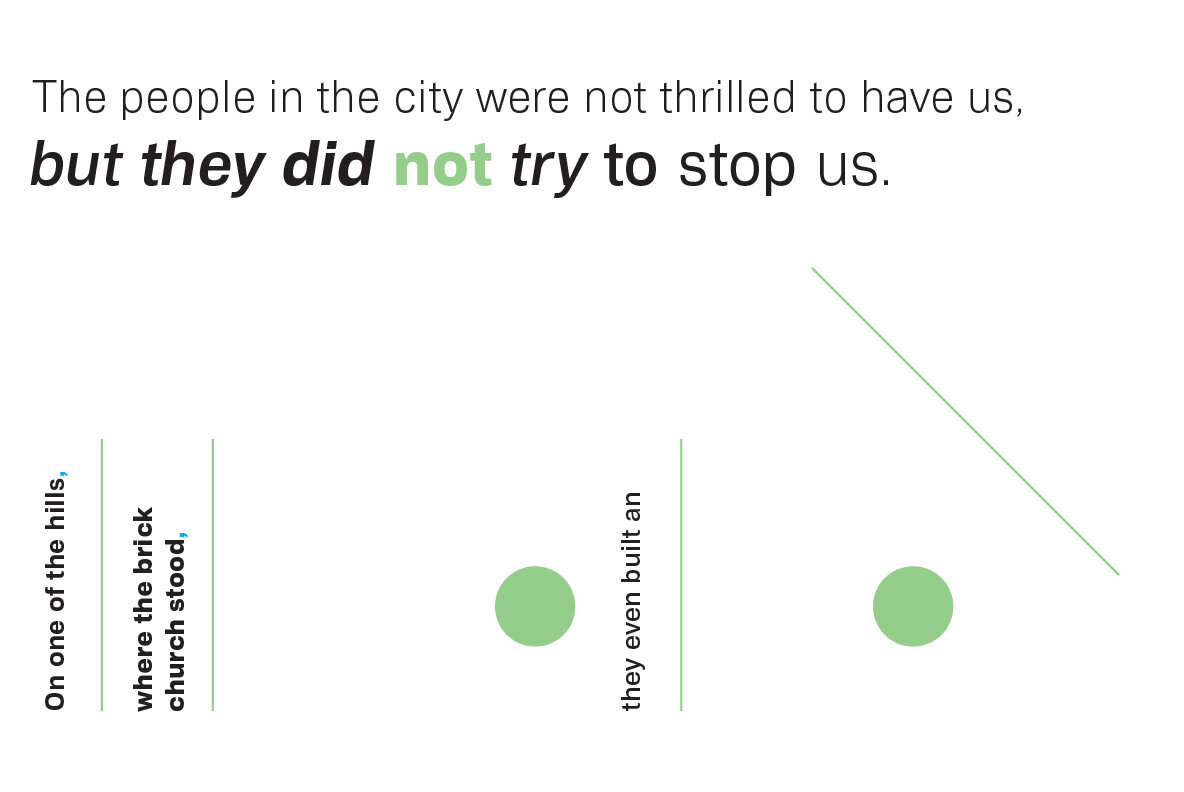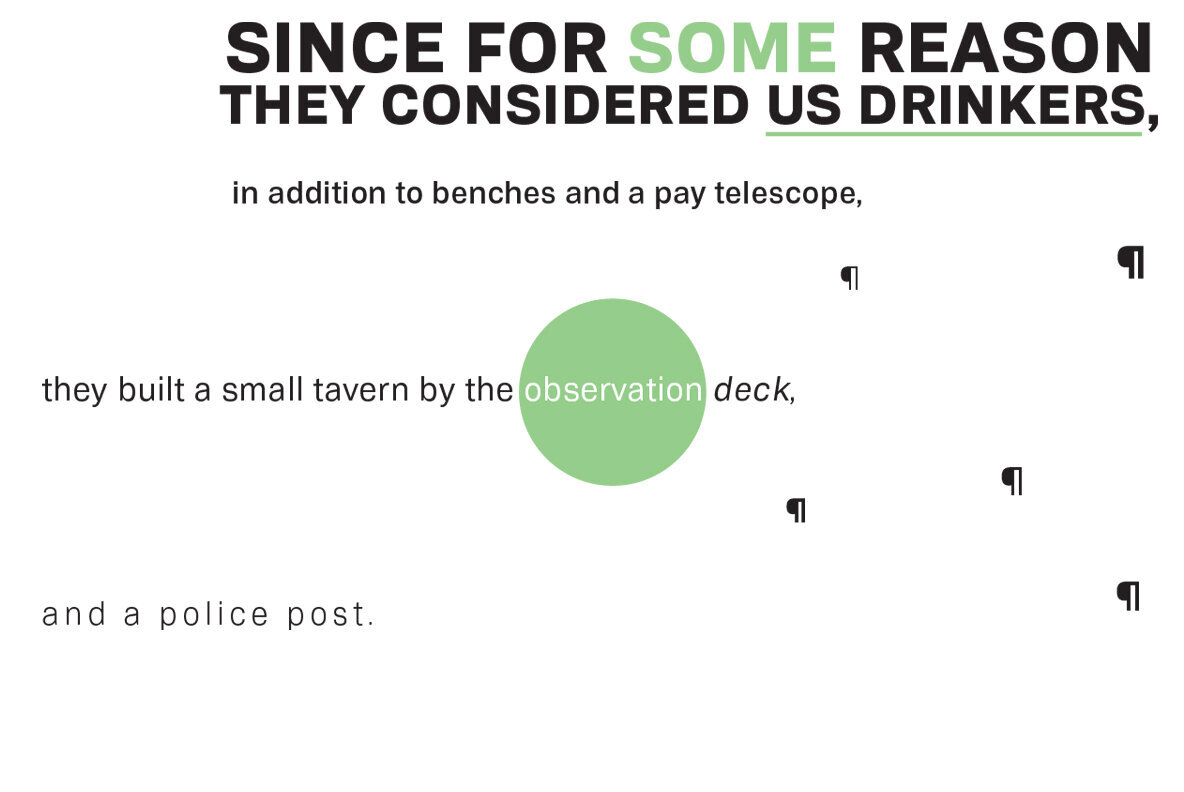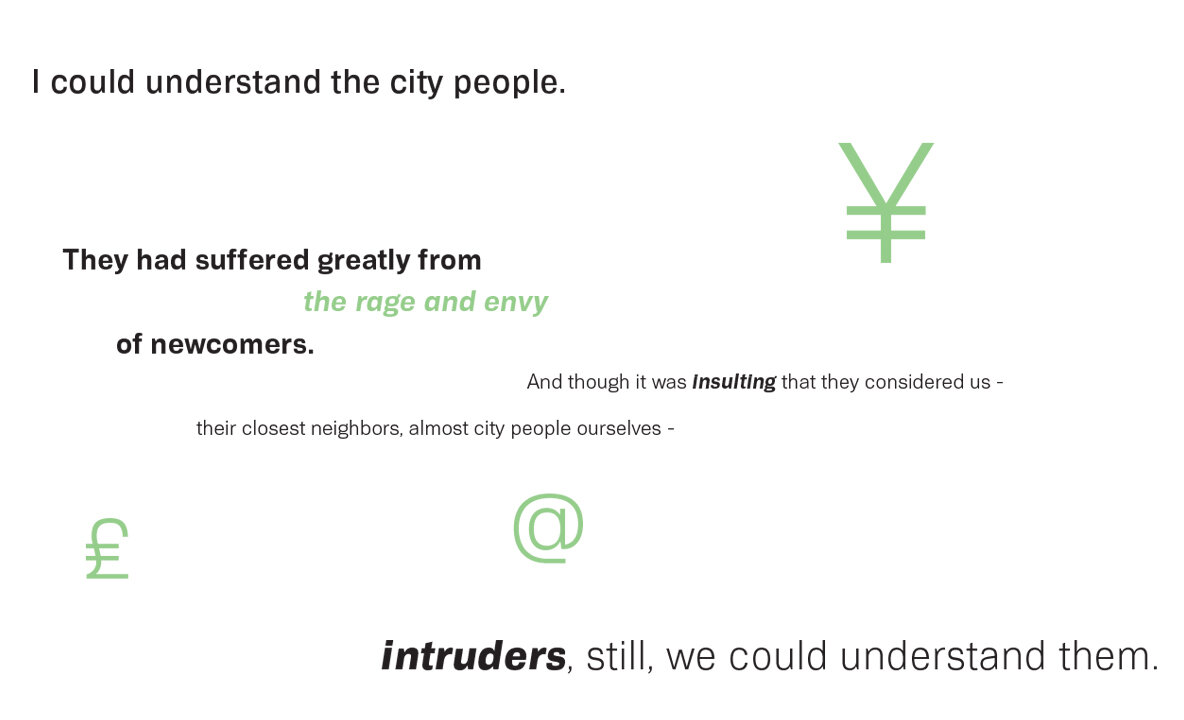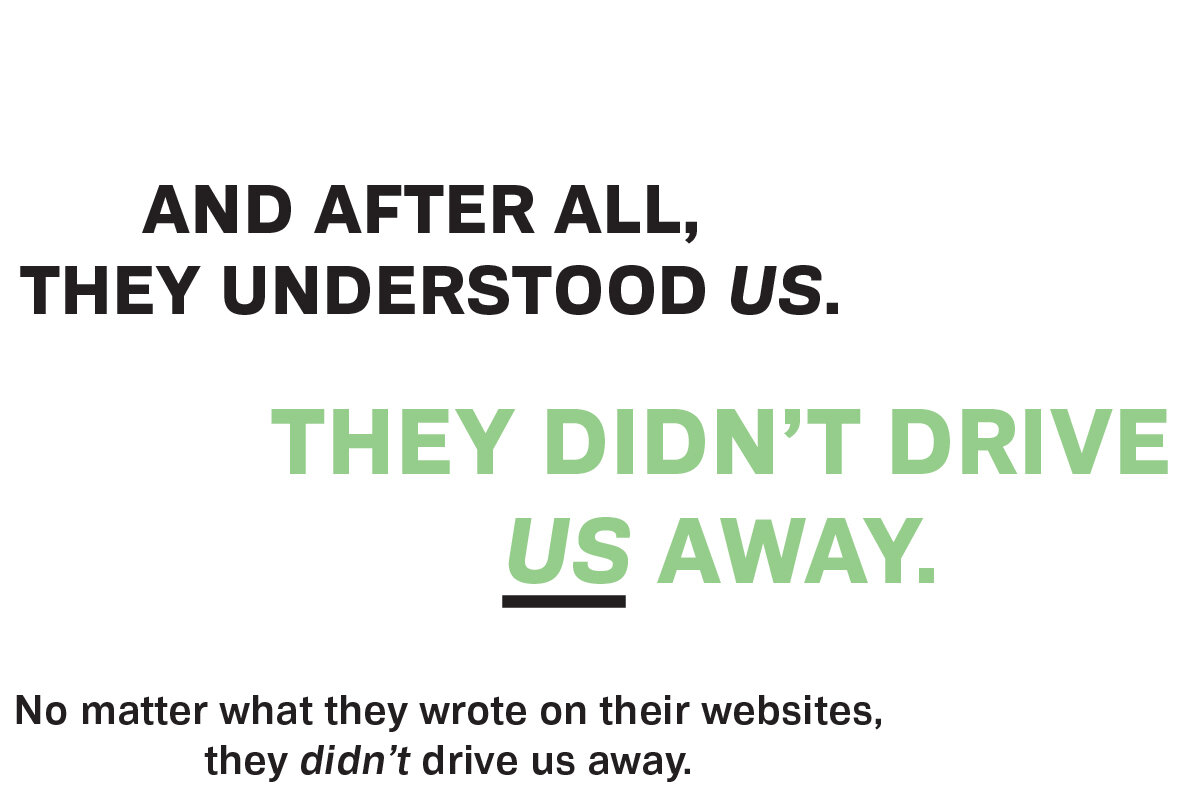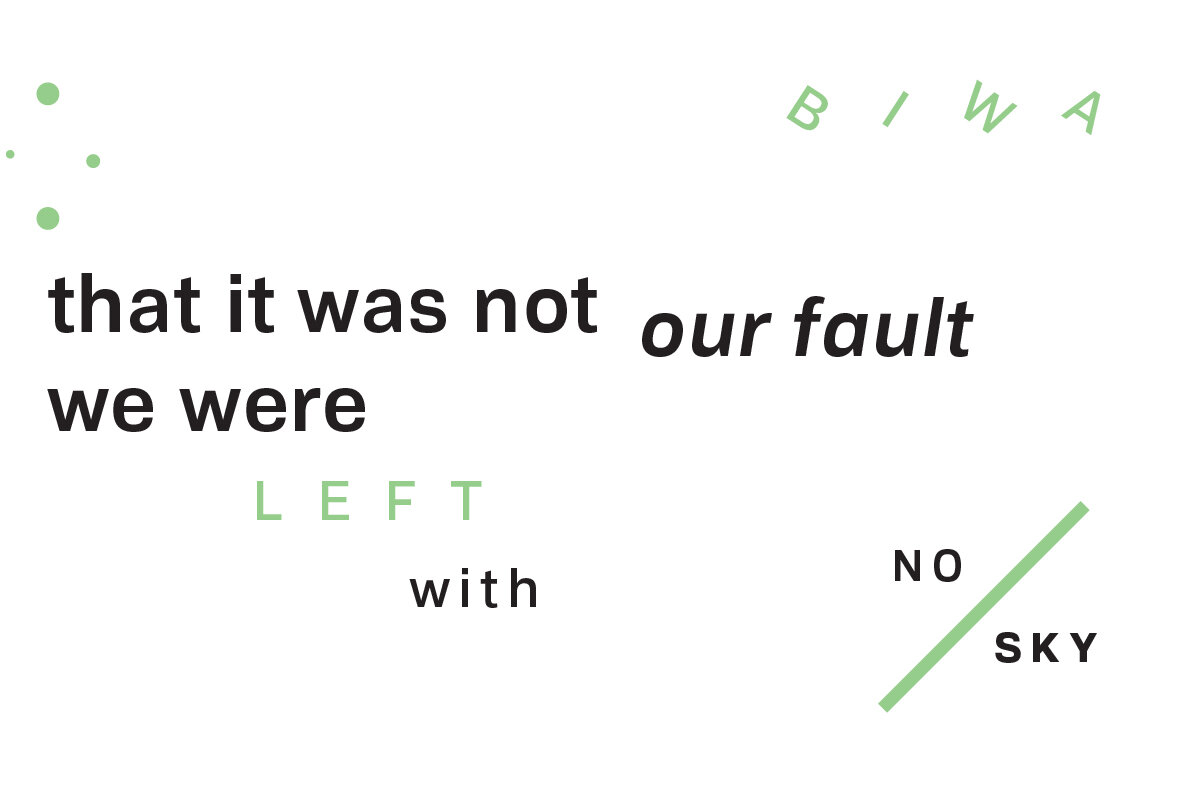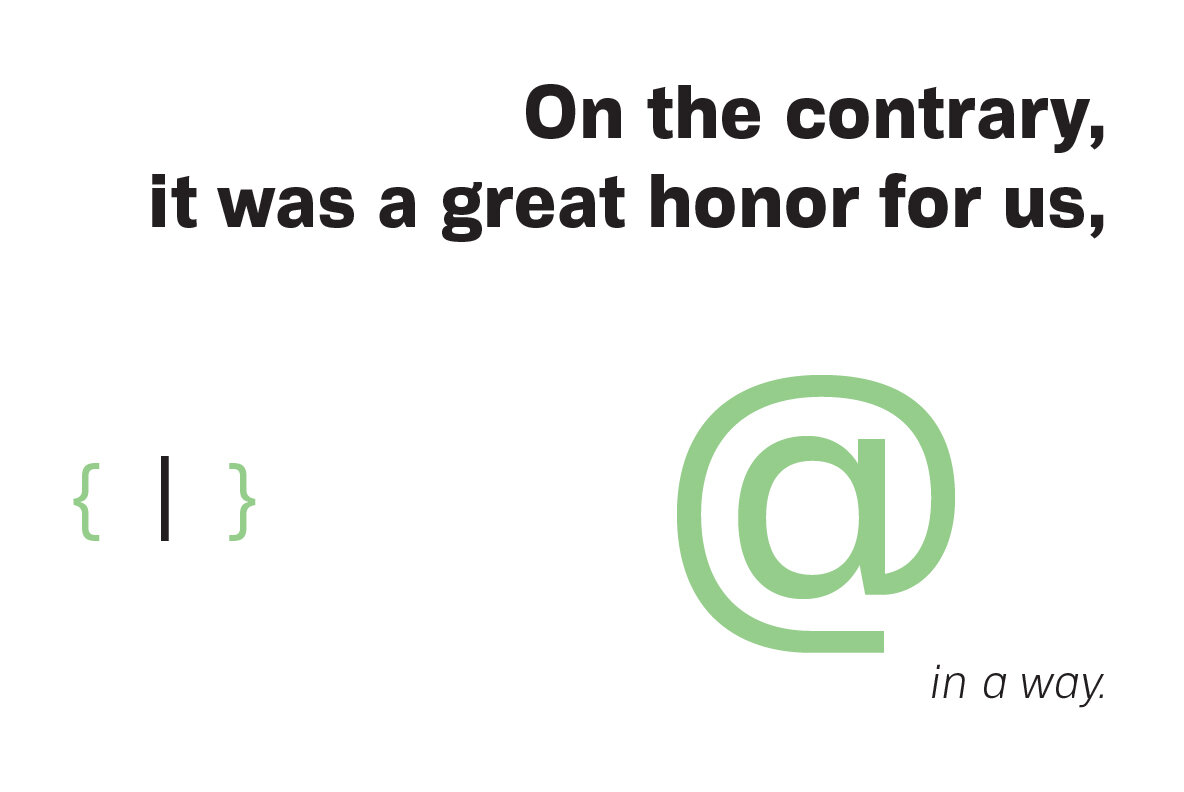
Biwa Variable Font
Biwa Variable is a new straight-sided family of formally nuanced grotesk typefaces in variable font format. Biwa’s lighter weights feel subdued, cool in tone, and neutral, while the heavier weights are more robust and full of personality. Biwa Variable and Biwa Variable Italic combine the entire Biwa and Biwa Display family, containing both weight and optical size axes so that you can adjust them to look exactly the way you want in any situation. Developed over the past few years by Ian Lynam and James Todd, Biwa Variable and Biwa Variable Italic are paeans to the immediate moment when phototype arrived on the global scene — partially smooth and partially machined. Biwa Variable and Biwa Variable Italic are neutral in tone, have enlarged x-heights, and look amazing on-screen and in print. Each weight is designed to be highly readable in print and on-screen. The italic variations are true italics, having a single-storied italic a and have been designed for smooth, fluid reading and text-setting. Lovingly spaced and kerned, the Biwa family works equally well for text typesetting and for display design work. Languages supported include Western European, Central, and South European. The entire family is comprised of a range of weight axes and matching optical size axes that features rounded terminals for large-scale display work. Sans serif fonts, no matter how neutral they feel, are ultimately formally nuanced. We wanted to add to this legacy, but bring in elements of the grotesks of the Stephenson Blake foundry to add humanizing features, creating a formal and conceptual interplay to delight the senses. The lighter weights are slightly slimmer than the regular and bold weights to give the typeface more of a vertical feel, inviting readers’ to rapidly read typeset text with a maximum of contrast and a minimum of optical dazzle. The entire family has been rigorously kerned and spaced for readability on-screen and in print.